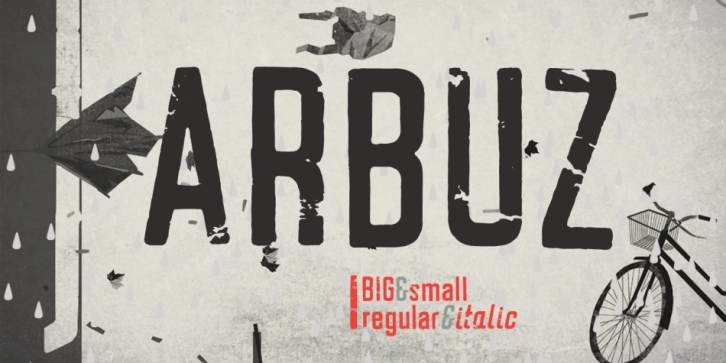
Arbuz is a grunge font family. This typeface has two styles and was published by Justyana Sokołowska.
Arbuz is sans serif and distressed font. It has lowercases and three options for every letter. All of the characters have a high resolution so they can be used in a large size. Every variety contains 3 alternative characters with automatic replacement.